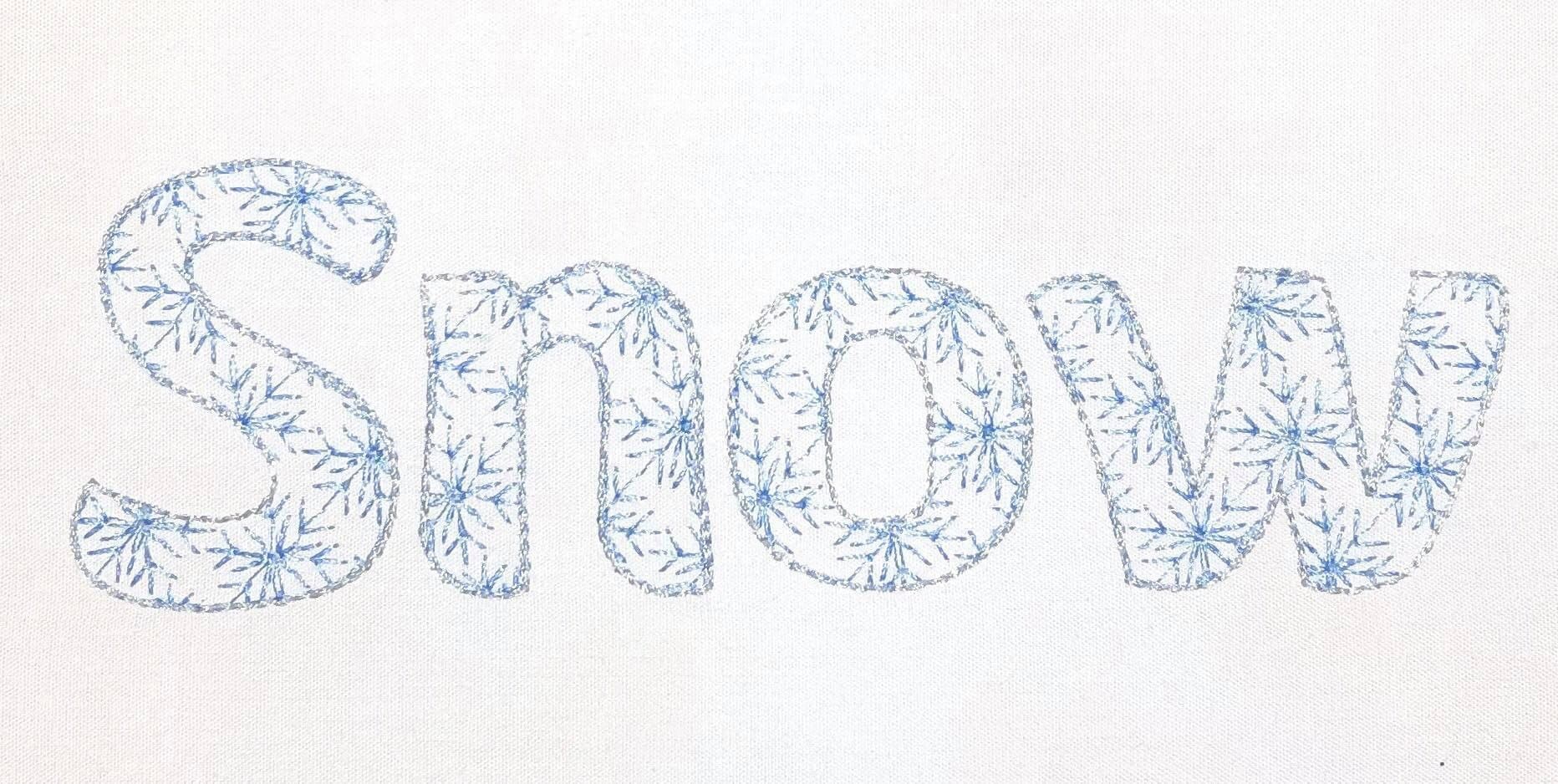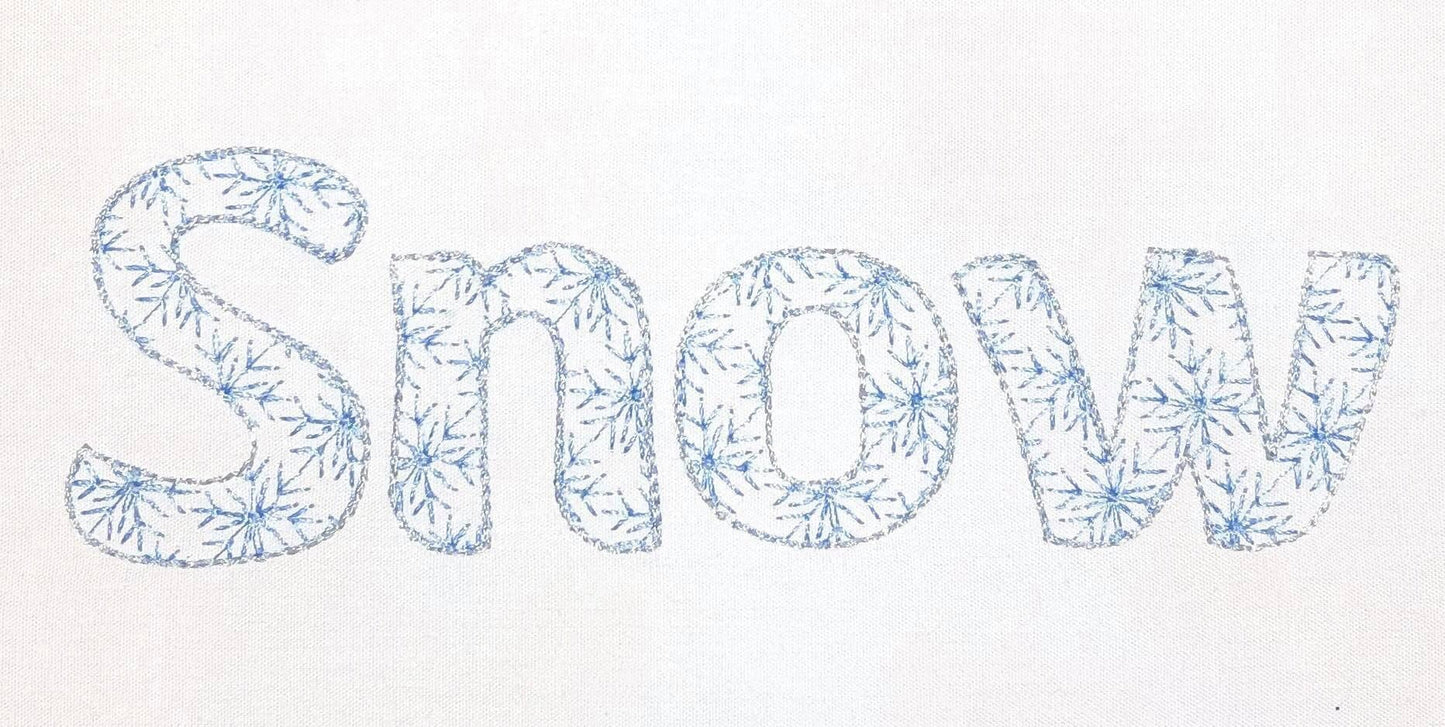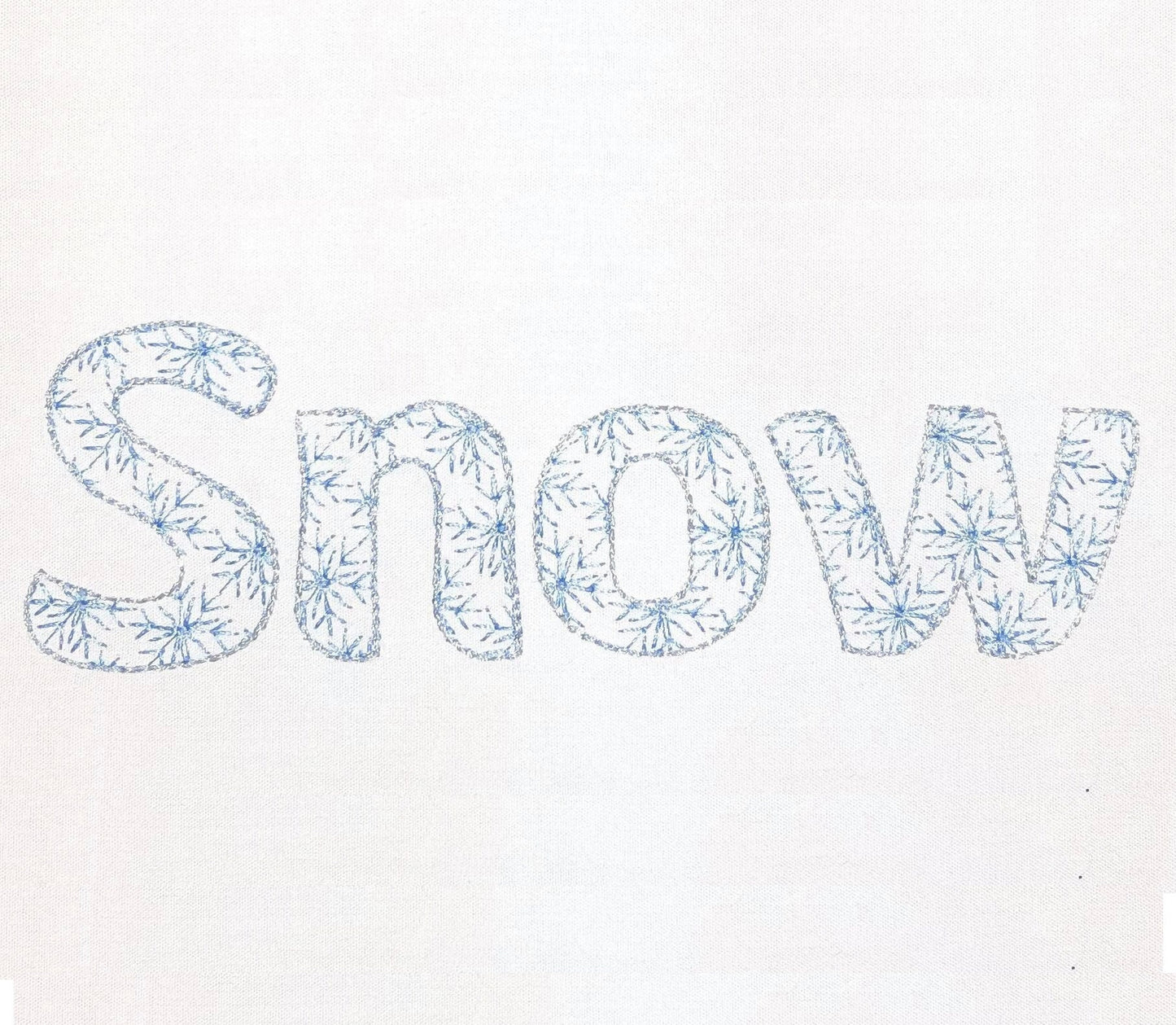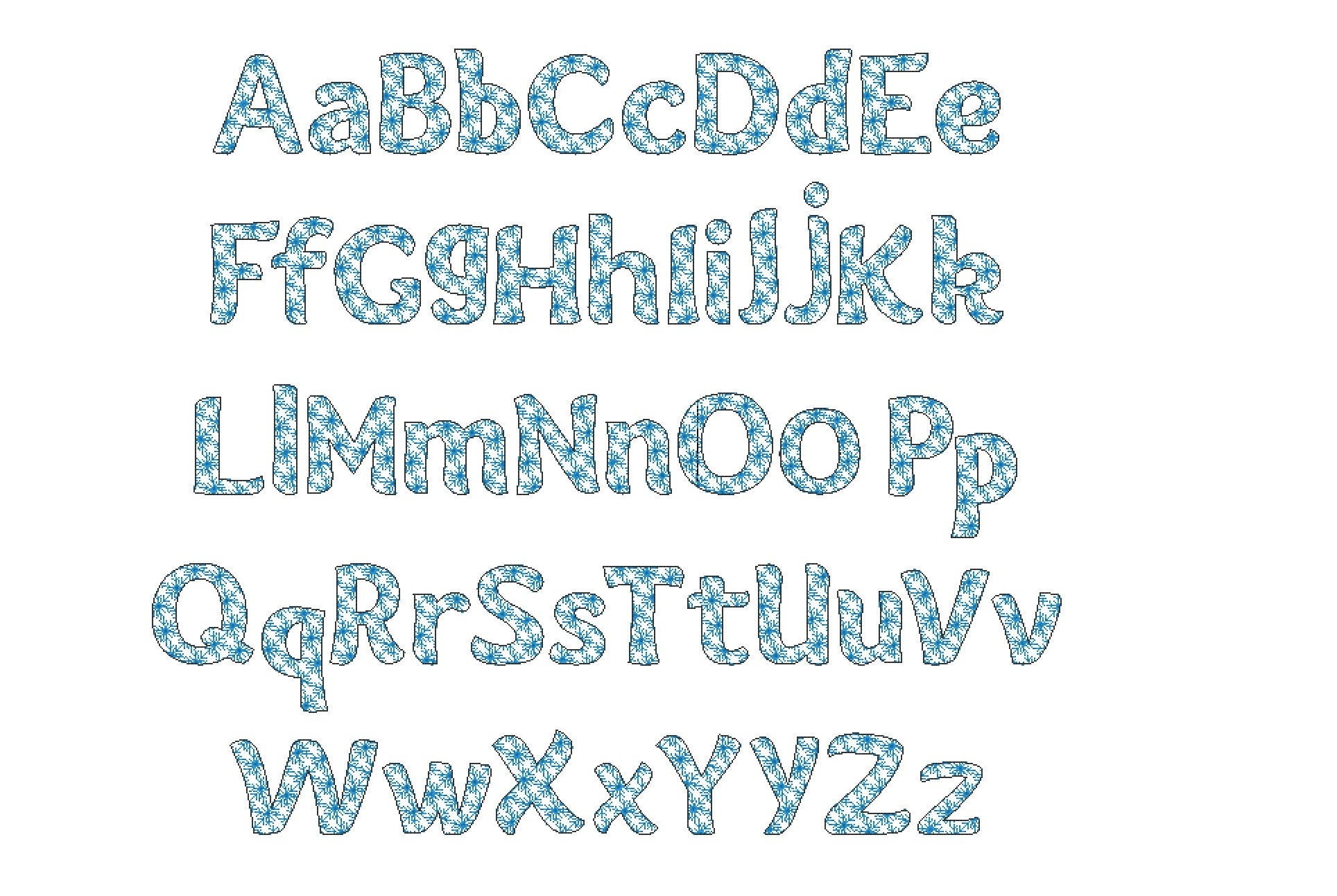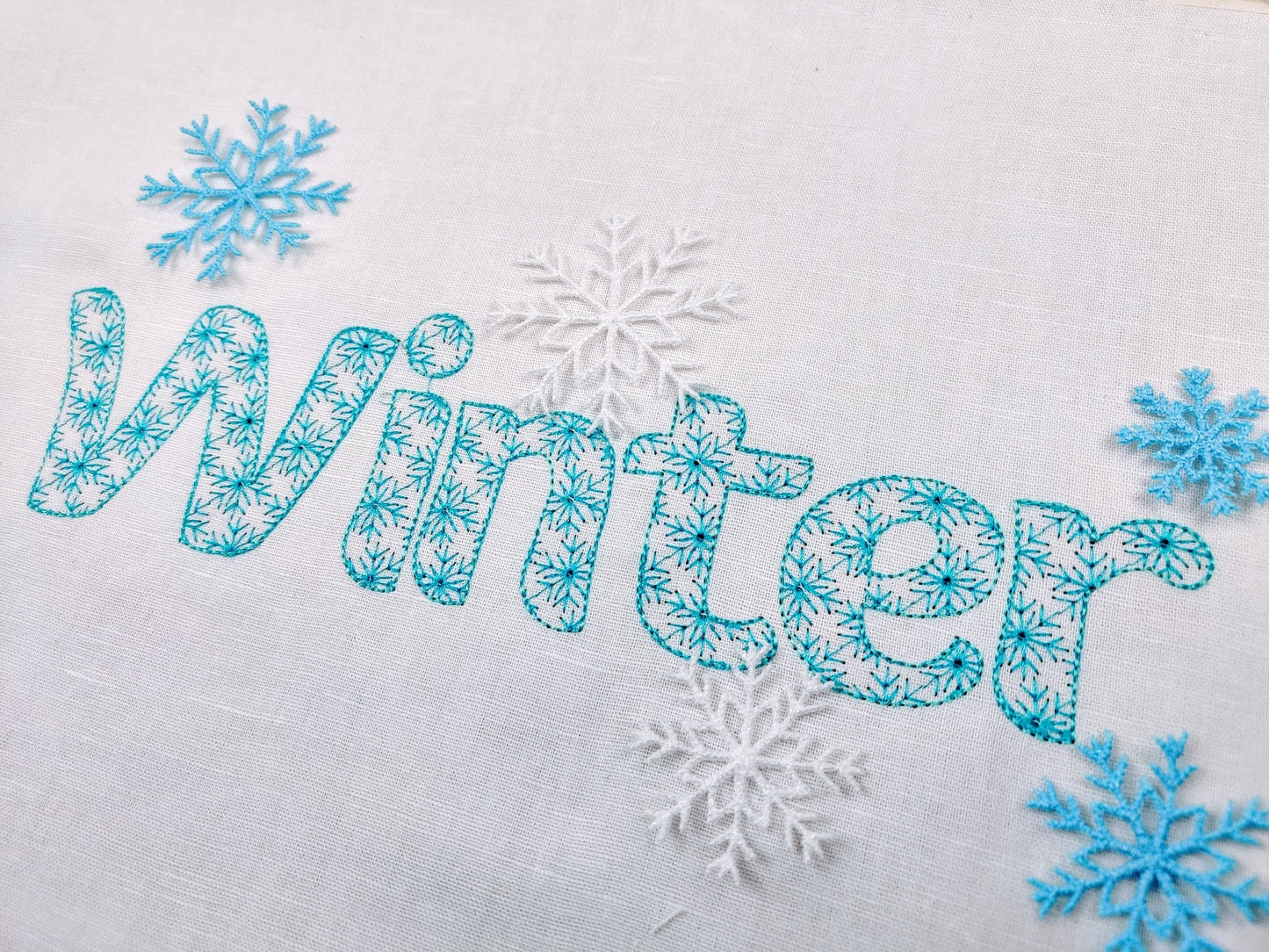
Or click to open the linkA snowflake font with a light sketch outline that looks like lace. Pretty for winter and Christmas names on stockings, pillows and sweaters.
A quick stitch design: the letters look like lace and the fabric shows through. Uppercase and lowercase letters and punctuation in six sizes: 1.8, 2.1, 2.6, 3, 3.3 and 4.2 inches.